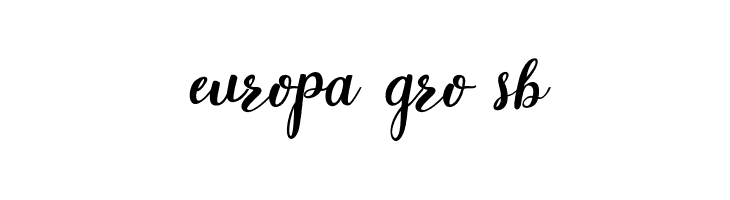
A modern, minimalist font with thin, consistent strokes and geometric curves.
A modern, minimalist font with thin lines and rounded edges.
A bold, filled, italic font with geometric and dynamic design elements.
A bold, geometric font with a filled pattern for a striking, modern look.
A modern, geometric outlined italic font with a dynamic, futuristic style.
A geometric, grid-like font with intersecting lines for a modern look.
An elegant cursive script font with smooth curves and delicate flourishes.
A flowing, cursive font with elegant, sweeping curves and a handwritten aesthetic.
A flowing, elegant script font with medium weight and graceful curves.
A textured, hand-drawn font with a playful and artistic style.
A modern sans-serif font with clean, geometric letterforms.
A classic serif font with strong, pronounced serifs and a timeless aesthetic.
A classic serif font with elegant curves and strong readability.
A flowing, cursive script font with elegant, sweeping strokes.
A modern, cursive font with a handwritten style.
An elegant script font with flowing, cursive letters and a refined, sophisticated style.
A modern, geometric font with bold uppercase and sleek lowercase letters.
A modern, decorative font with bold, blocky uppercase and thin, elegant lowercase letters.
A bold, modern font with dynamic curves and strong character presence.
A bold, contour-styled font with a modern yet classic appeal.
A decorative script font with elegant swirls and flowing cursive letters.
Playful, rounded handwritten font with bold, informal shapes.
A playful, casual handwritten font with smooth, flowing lines.
A bold, angular font inspired by ancient runes with a modern edge.
A lively handwritten font with fluid and dynamic strokes.
A casual, elegant handwritten font with fluid, natural strokes.
A sleek, modern font with elongated, thin strokes and a minimalist aesthetic.
A modern, minimalist font with elongated, thin strokes and a sophisticated style.
A sleek, italic font with thin, elongated characters and a modern, elegant style.
A sleek, modern italic font with thin, elongated characters and a minimalist style.
A flowing, handwritten script font with a casual elegance.
A bold, decorative font with an urban, graffiti-inspired style.